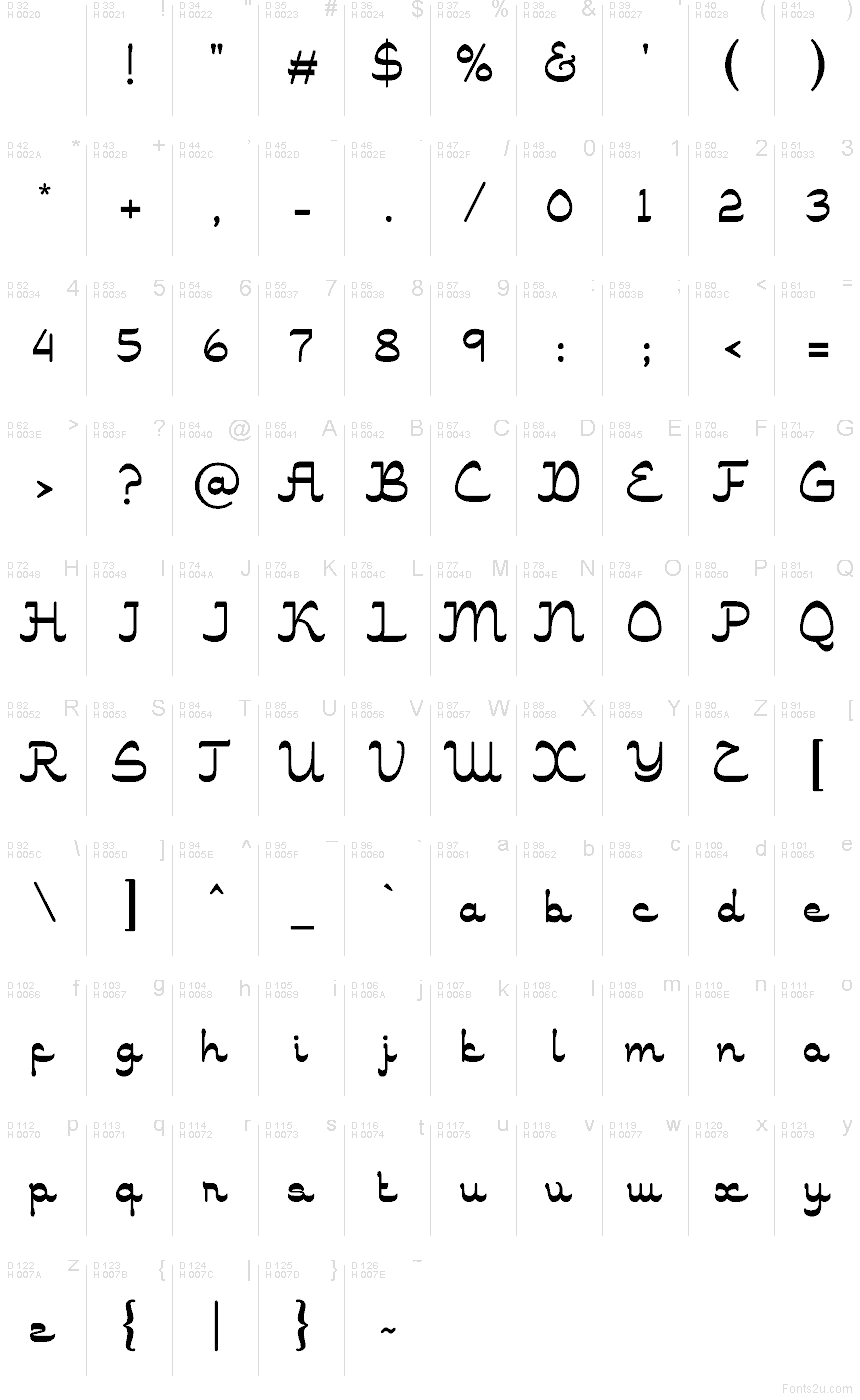
Mabrukah
Mabrukah font by Sronstudio is a free decorative faux-Arabic script typeface that instantly adds a Middle Eastern-inspired flair to your layouts. Its smooth, looping strokes and rounded, almost bubble-like curves create a friendly, informal rhythm that feels hand-drawn yet consistent. The letters link together in a fluid line, giving logos, headlines, and wordmarks a cohesive, flowing texture that’s easy to read at a glance.
Using Mabrukah, this free font shines on restaurant branding, hookah lounge signage, festival posters, travel ads, packaging, and social media graphics that need a touch of exotic warmth. The playful strokes and even weight keep it approachable rather than heavy or serious, so it works beautifully for casual or celebratory themes. Try pairing Mabrukah with a clean geometric sans serif set in smaller text to keep your hierarchy clear and your main wordmark in the spotlight.